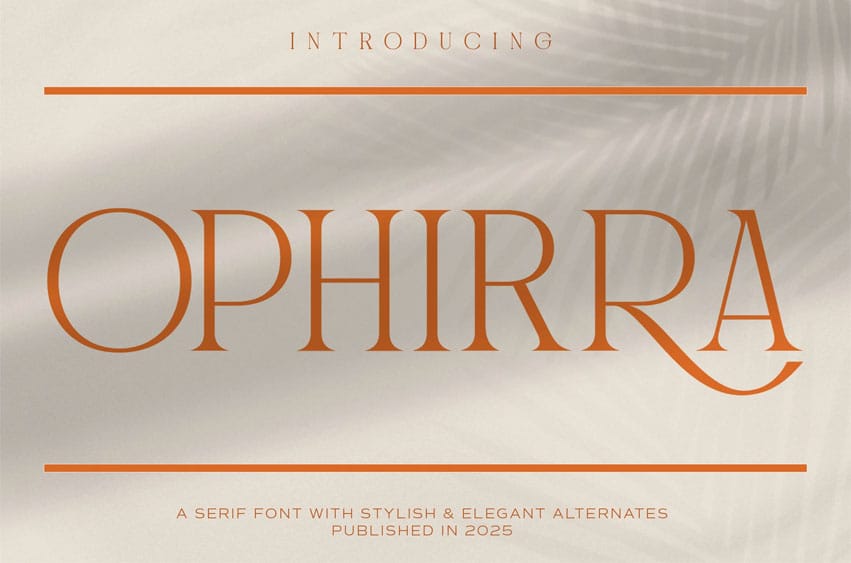
Ophirra Font is a refined serif typeface that blends classic elegance with a modern twist. Featuring clean lines, graceful curves, and beautifully crafted alternates, this font is designed to elevate any visual project. Its luxurious yet versatile look makes it perfect for branding, editorial layouts, wedding invitations, packaging, and other premium design needs.
- Uppercase & lowercase letters
- Numerals, punctuation & symbols
- Elegant stylistic alternates
Make your design speak elegance and class with Ophirra – a font that blends tradition and trend in perfect harmony.